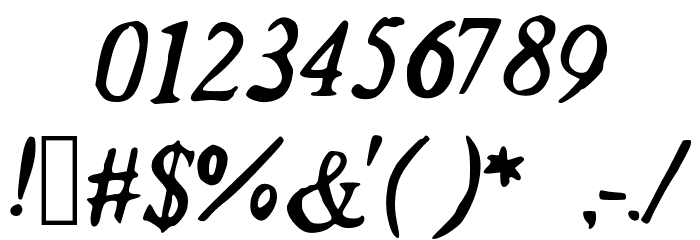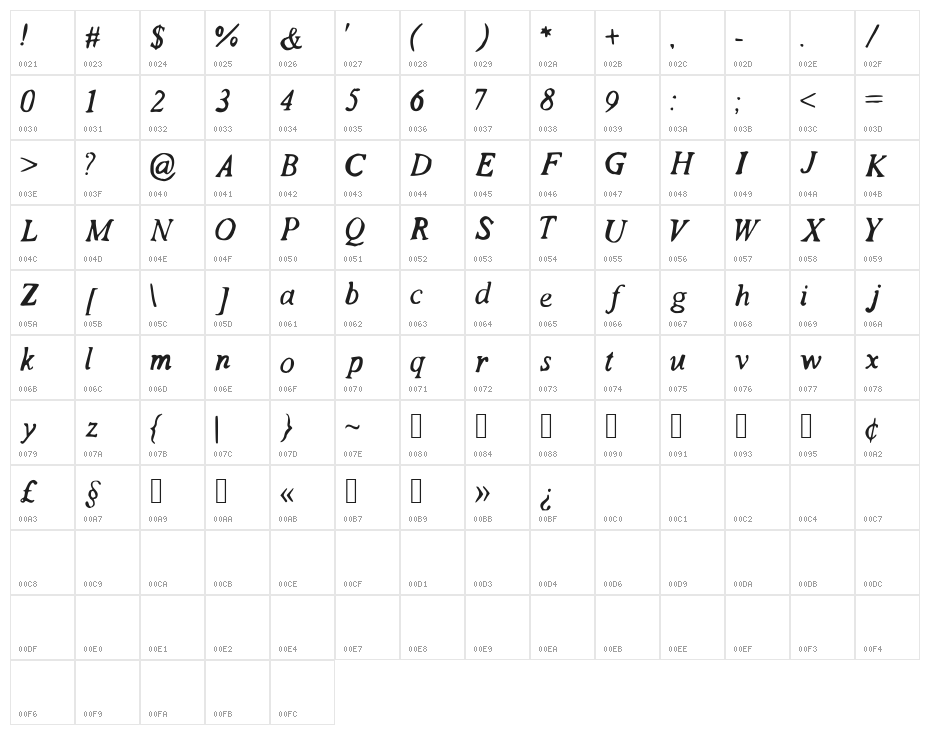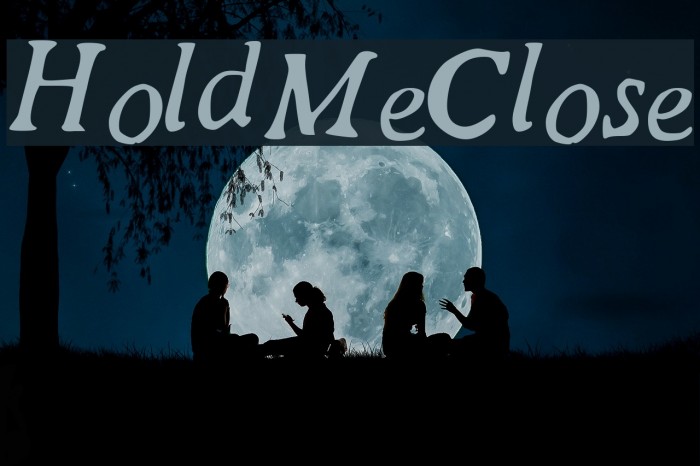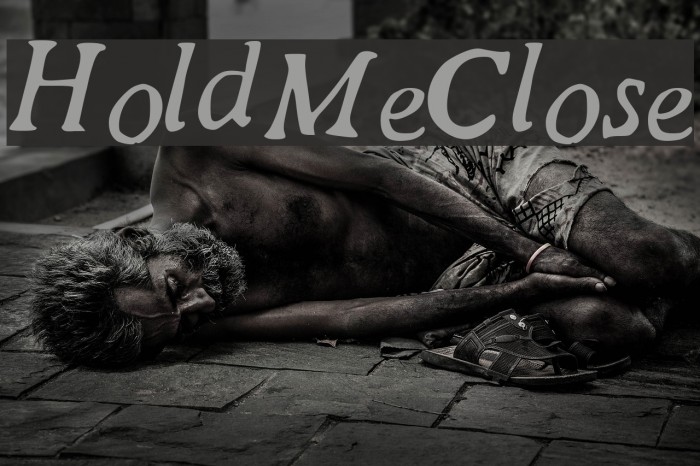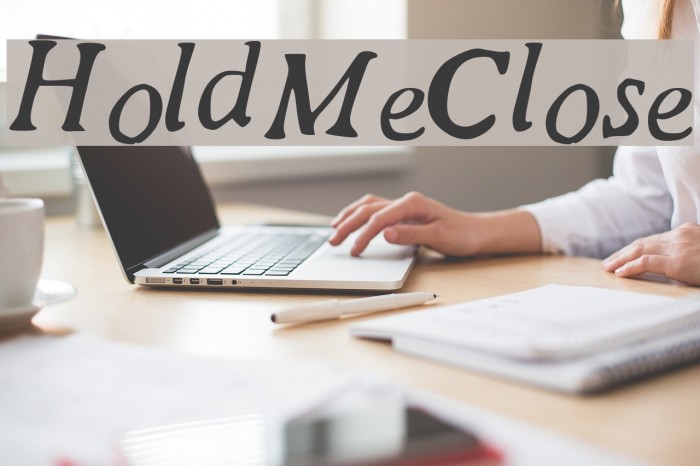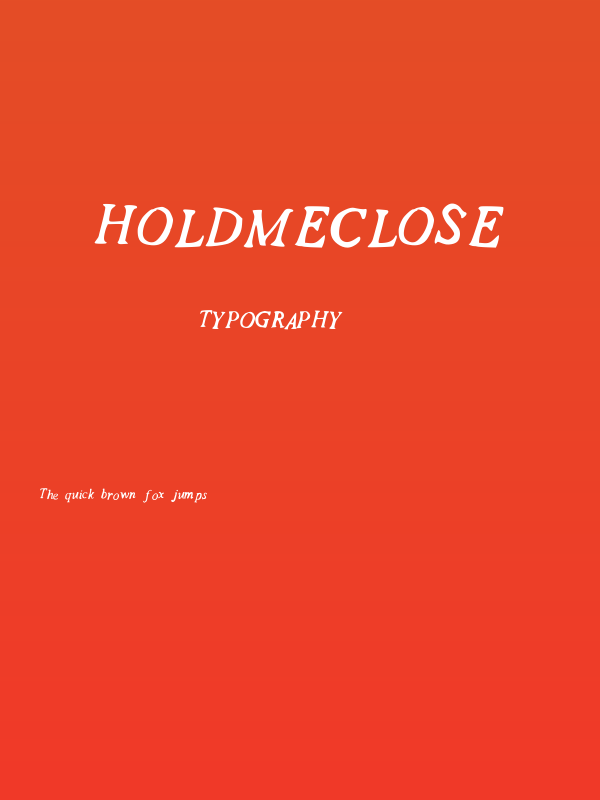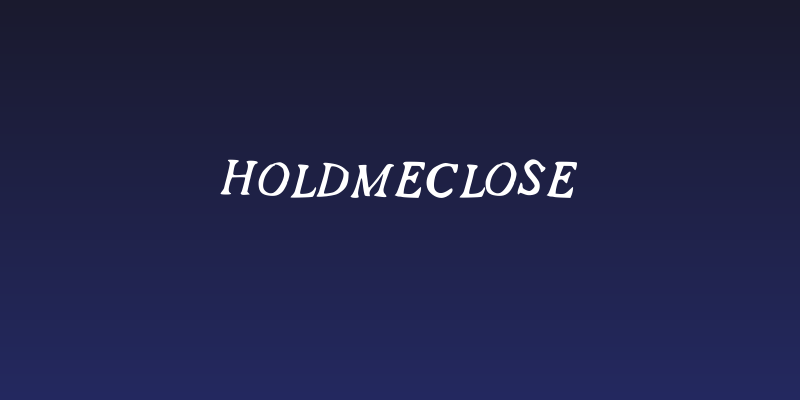
HoldMeClose Font
HoldMeClose Description
This font features a dynamic and flowing script style with a slight slant, giving it an elegant and sophisticated appearance. The characters are well-defined with a moderate contrast in stroke thickness, creating a balanced and readable text. The uppercase letters are slightly larger and more pronounced, while the lowercase letters maintain a consistent flow. The numerals are clear and distinct, matching the overall style of the alphabet. Special characters are included, adding versatility to the font's use. The font's design is suitable for projects that require a touch of elegance and formality.
| Use Case | Headlines, Invitations, Branding |
| Proposed Projects | Ideal for wedding invitations, elegant branding, greeting cards, and formal event materials. |